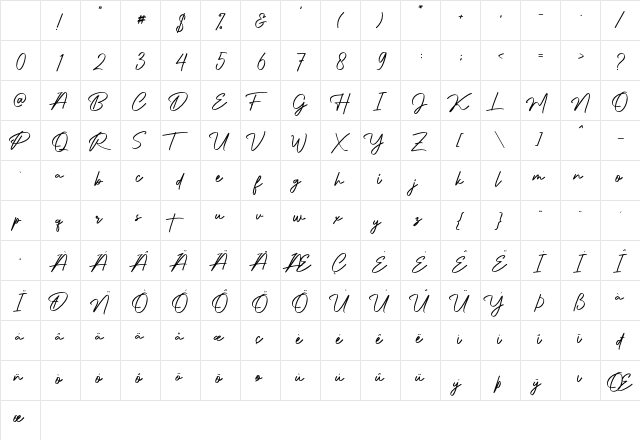
Complete Authentic Signature glyph index. Displaying only characters natively supported by Authentic Signature font.
Authentic is a composed and adaptable typeface that performs quietly and consistently across a wide range of design contexts.